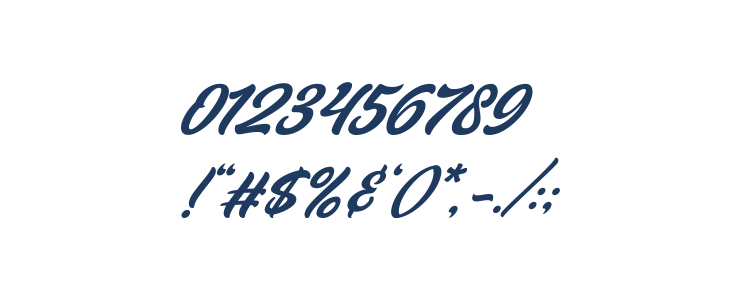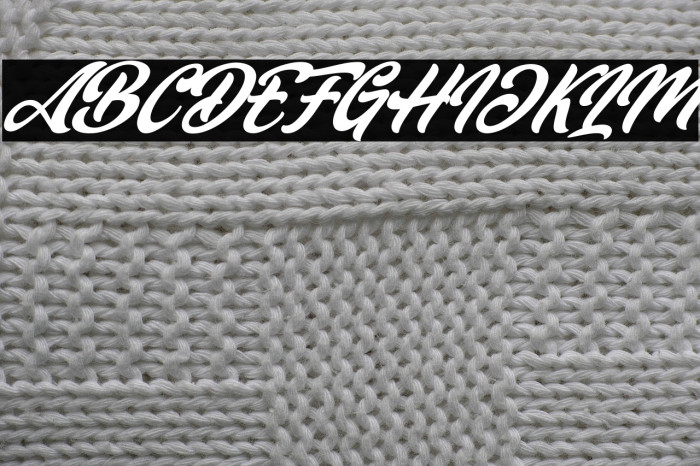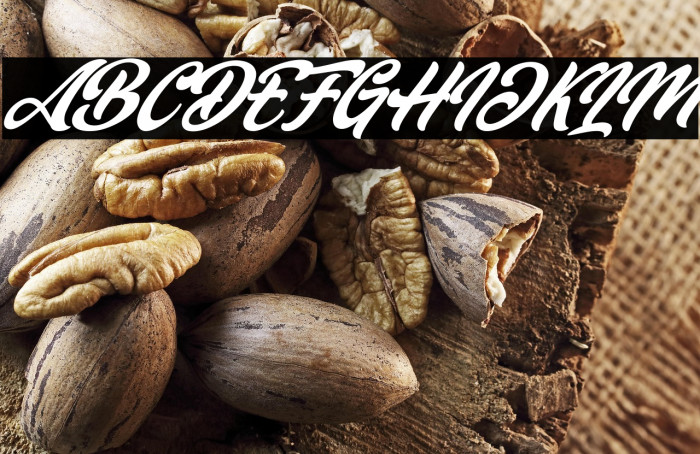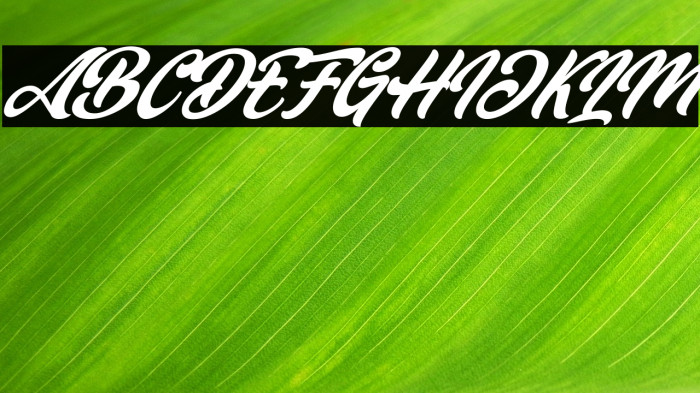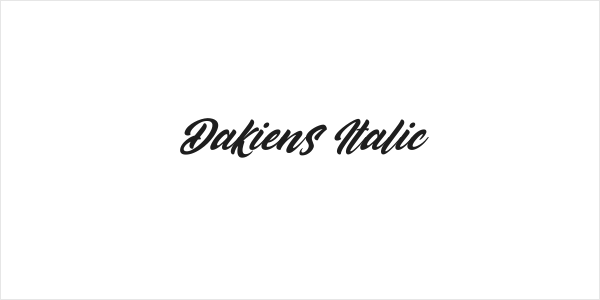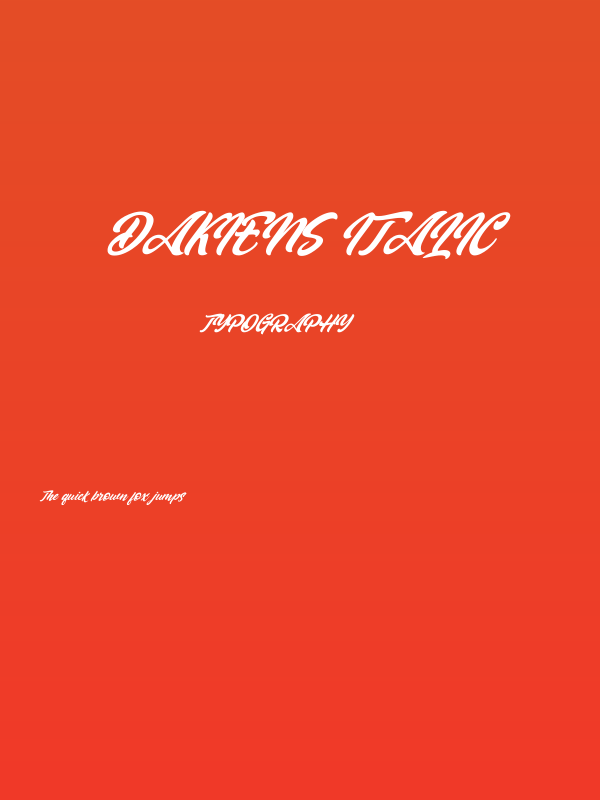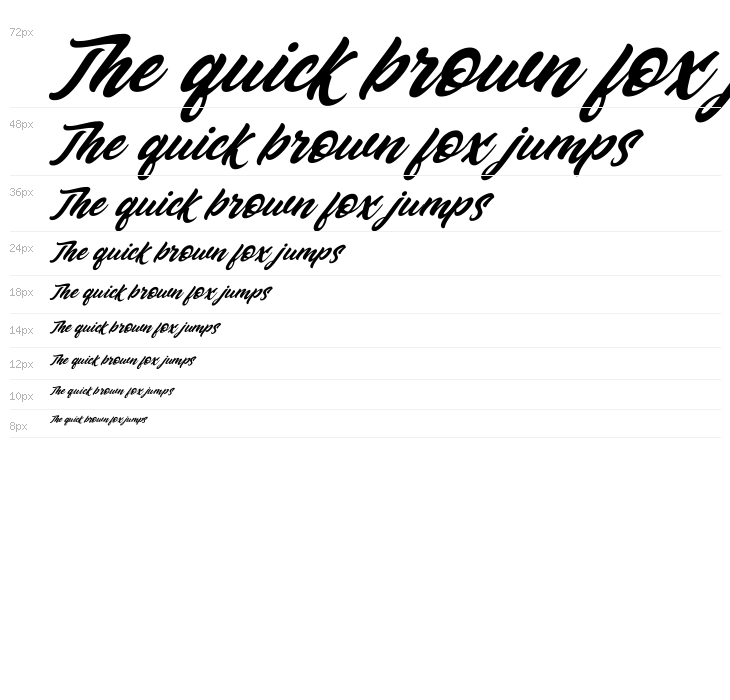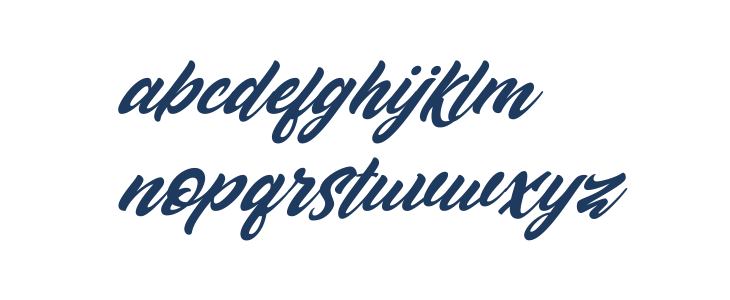
Dakiens Italic Font
Dakiens Italic Description
This font features a bold and flowing script style, characterized by its smooth, cursive letterforms that convey a sense of elegance and fluidity. The letters are connected, creating a seamless and continuous appearance, which is typical of script fonts. The strokes are thick and consistent, providing a strong visual impact. The italic slant adds a dynamic and sophisticated touch, making it suitable for creative and expressive designs. The font includes a full set of uppercase and lowercase letters, numbers, and a variety of special characters, ensuring versatility in usage.
| Proposed Projects | Ideal for wedding invitations, branding, logo design, and elegant packaging. |